Choosing the best luxury fonts for that premium feel can be tricky because the font is not just about sophistication.
For a page or app to have a good UX (user experience), the font is significant. Choosing the right font can make a huge difference in how your content looks and feels, and it can also play a role in conveying your site’s overall tone and message.
Also, when making your brand stand out, choosing the right font can be essential. The best luxury fonts will have a classic, timeless note that fits with the luxurious feel of your brand.
Brands should also strive to use fonts consistently across all platforms; this helps to build recognition and creates a cohesive design aesthetic that speaks directly to your target audience. With careful consideration and execution, you can create fonts for branding that can help make your brand look as luxurious as it truly is.
How to choose the Best luxury fonts?
The right font can help to convey the desired tone and atmosphere, while the wrong font can make things look messy and unprofessional.
These tips can come in handy in choosing the right font for your product design.
Ensure that the font can be read easily
Easiness of reading is very important. If visitors can easily read your content, they will stick around for a short time; if not, they will leave in a few seconds.
Consider the overall tone you want to convey with your website
Different fonts create different impressions. A formal serif suits a law firm, while a playful sans-serif fits a product aimed at kids. The typeface sets the tone before anyone reads a word.
Make sure the font you choose is web-safe
It means that it should be available on most computers and devices. If you use a custom font that is not supported by specific devices, it can gravely affect your product.
Stick to one!
Too many fonts can make your website look cluttered and confusing. Please stick to one or two fonts, and use them throughout your site for consistency.
Choosing the right font has to be done after much thought, a combined decision by the team, and, of course, with care.
Consider Your Brand’s Personality
Your font should reflect your brand’s personality; for example, if your brand is fun and playful, choose accordingly. If you wish to do branding on a severe and formal note, a more serious-looking font is a better fit.
Consider the message you want to convey
The first step is to consider what message and feel you wish your font to convey. For example, do you want it to be formal or relaxed? Playful or serious? Once you know the tone you want to set, you can start narrowing down your options.
Think About Your Target Audience
It would help to consider who will read or view your text. Creating a user persona and understanding the target audience helps a great deal. For example, a more modern font is a good choice if you’re targeting younger consumers.
If it’s more of a creative project, you can experiment with more unique options. On the other hand, a traditional font might be better if you’re targeting an older audience. These are not preoccupied notions; Research has already confirmed that users are more inclined toward simplicity and familiarity.
Simple is always better
A busy or complicated font can be challenging to read and will likely turn off your target audience. Stick with a simple font that is easy to read.
The font you choose should also fit in with the overall design of your project. For example, if you’re working on a website, you’ll want to ensure the font is web-safe so it can be viewed on all browsers and devices.
And if you’re creating a printed piece, you’ll need to consider the size and layout of the text to ensure the font is legible.
Test Out Different Fonts
Which font is right for your brand? Test out different fonts and see which resonates with your target audience.
Try using different fonts for marketing materials, such as your website, business cards, and social media posts. Then, see which fonts get the best response from your audience.
Once you’ve narrowed your choices, you must test the fonts to see how they look. Create a mock-up of your project using the font, and it will help you see how it looks in the context of your overall design and whether it’s easy to read.
Hire a Professional
If you still need help deciding which font is right for your brand, consider hiring a professional. A good UX design agency or branding expert can help you choose a font that reflects your brand’s personality.
Gather feedback
Finally, remember to get feedback from others on your font choice. Show your mock-up to a friend or colleague and see what they think. They may have some helpful insights that you should have considered.
Why serif fonts dominate luxury branding
Look closely at high-end brands and you’ll notice serifs everywhere. Vogue, Tiffany & Co., Rolex, and Prada all lean on serif typefaces, and it isn’t an accident. The small strokes at the ends of each letter carry centuries of print heritage, so a serif reads as established and premium before you’ve registered a single word.
For a luxury brand, that association does real work. Garamond signals craftsmanship and permanence. A high-contrast didone like Bodoni or Didot leans editorial and fashion-forward. A transitional serif like Baskerville sits in between, refined without feeling cold.
A reliable starting point is a serif for the wordmark and headlines, paired with a clean sans-serif for body text and interfaces. The serif sets the tone, the sans keeps it readable.
15 Best luxury fonts that will help your company stand out
If you are particular about luxury fonts to help boost your branding, look no further than the following list. From classic serifs to modern sans serifs, these typefaces will provide an air of class and beauty to any project.
Baskerville
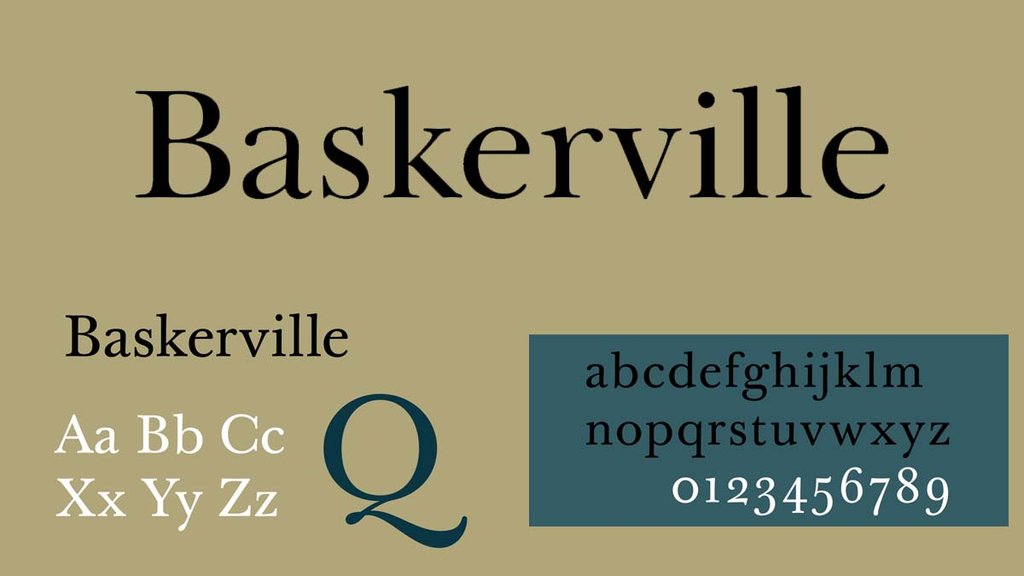
It is a typeface created in the 18th century by John Baskerville, and the font is named after him. A timeless classic, Baskerville is perfect for those who want an elegant and understated look. known for its readability and classic look, and it is often used in books and other printed materials
Garamond
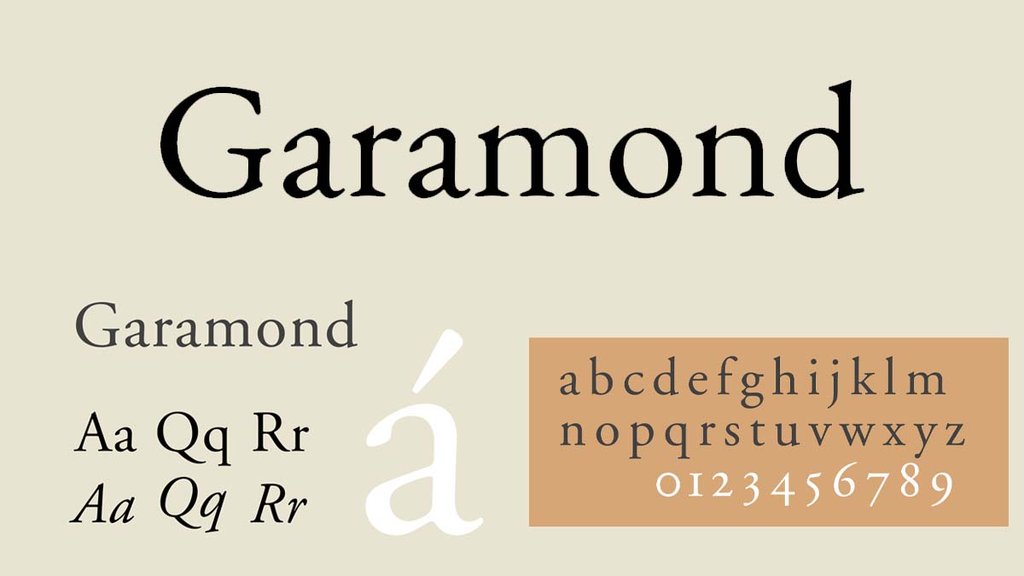
Garamond was one of the most famous typeface designers of the 1600s. It’s an effort to bring back the classic humanist fonts designed by Claude Garamont in the 16th century. Garamond is ideal for formal or traditional projects. Also, its elegant but simple design makes it a popular choice for body text and displays.
Bodoni
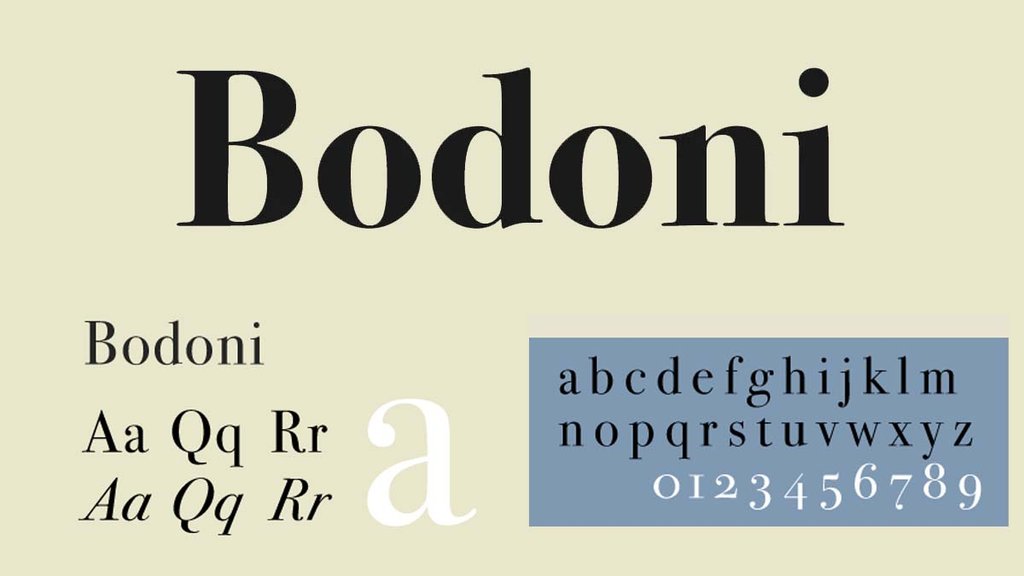
In the late 18th and early 19th century, Bodoni’s work had a considerable impact, and his typeface style became known as the “Bodoni face.” Its high contrast between thick and thin strokes still reads as refined and editorial, which is why fashion and luxury brands keep reaching for it.
Many different type foundries have changed and updated this classic serif typeface over the years. However, it remains a popular choice for designers looking for a timeless serif font.
Helvetica
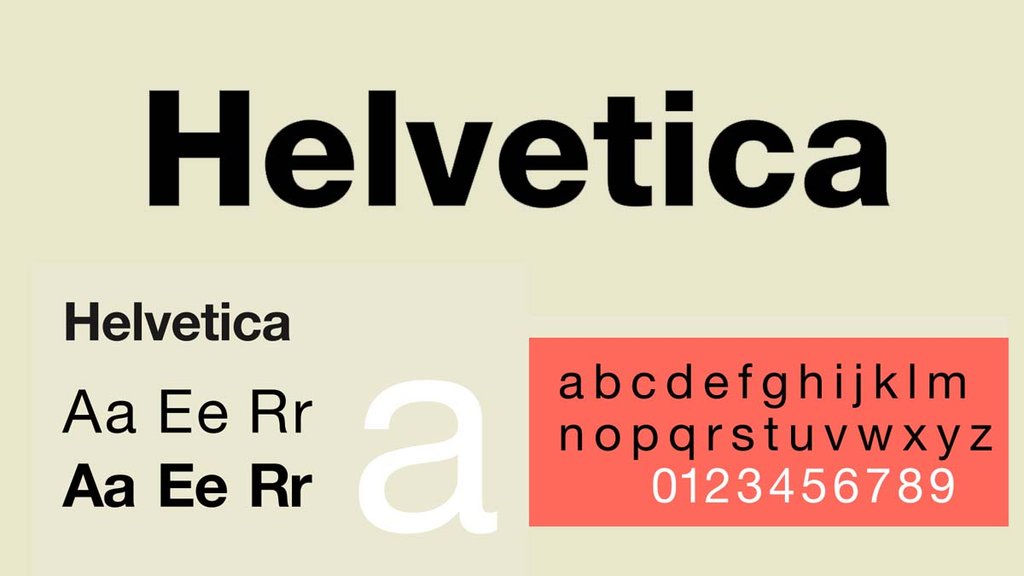
Helvetica has made a name for itself in web and interface design. Helvetica’s many weights and styles make it a flexible choice for both body copy and display. Owing to the same, the font is a popular choice for web and print design. Its clean, modern lines and neutral appearance make it easy to read. Helvetica was so famous that Gary Hustwit made a documentary about it.
DIN
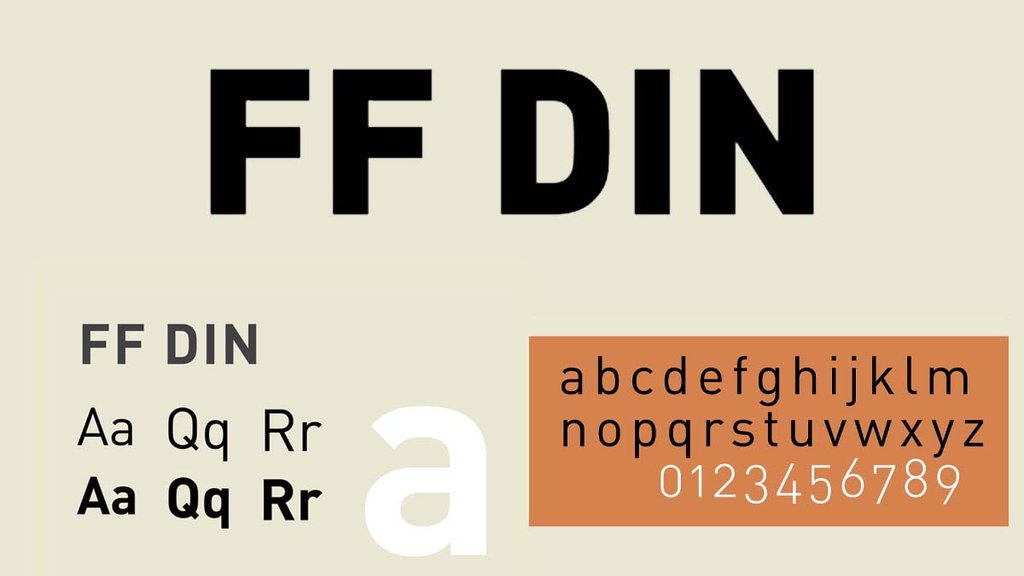
DIN is a playful font that will make your writing more interesting. It’s perfect for headlines, posters, and other creative projects. With its unusual curves and sharp angles, DIN will give your work some style. Give it a try today and watch how it changes the look of our content.
Futura
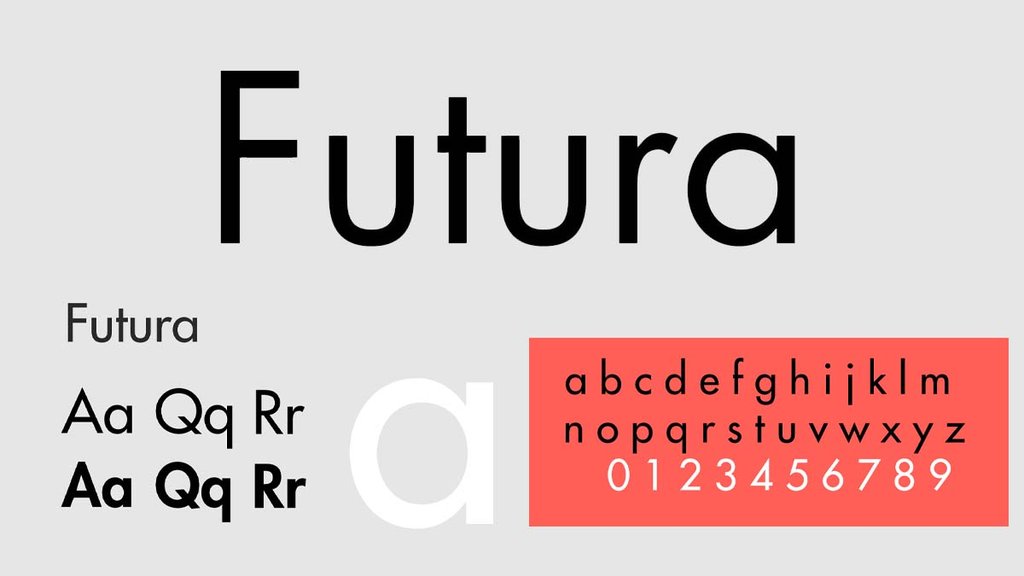
One of the most popular sans-serif fonts is Futura. Futura was the creation of German typeface designer Paul Renner in the 1920s, and he wanted it to be a revolutionary typeface that showed the modern age. A versatile and popular sans serif, Futura is perfect for various applications.
Akzidenz-Grotesk
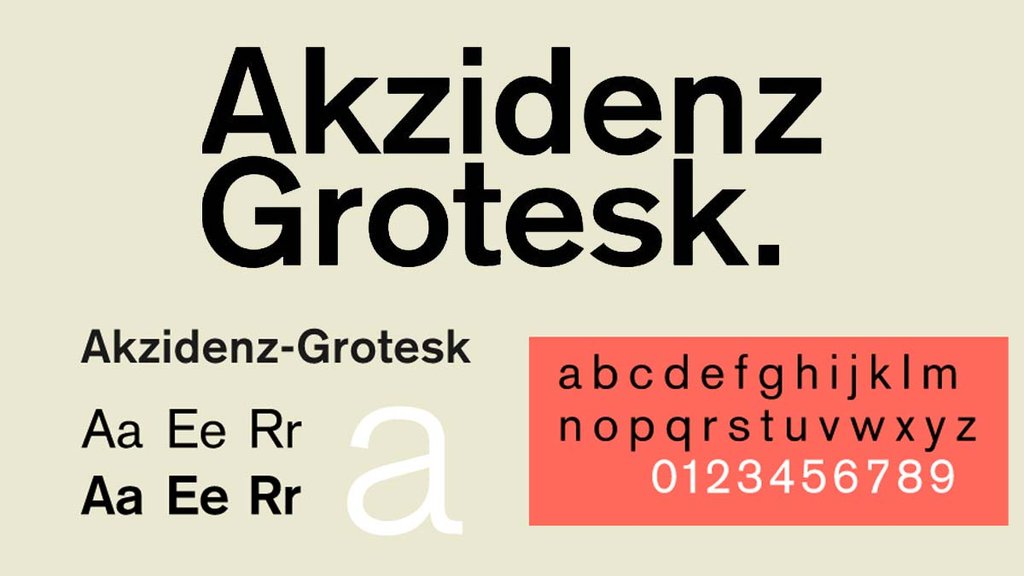
Embrace Good UX and see a skyrocketing profit.
Talk to a UX expert
Clan Pro
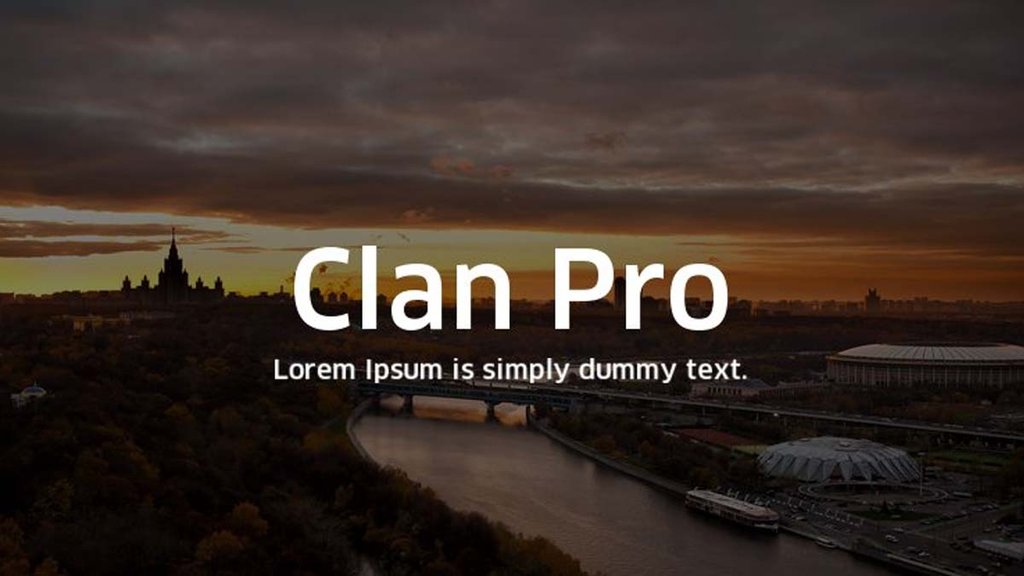
If you’ve ever wanted to stand out from the crowd with your font choice, Clan Pro is a great option. Developed by French typeface designer Neil Summerour, Clan Pro is a modern sans-serif font family. It includes several variations, such as Clan Pro Display and Clan Pro Narrative, so it can be adapted for different uses, whether you’re writing short captions or longer documents. Summerour took inspiration from traditional typesetting when creating Clan Pro, aiming to make it highly readable and exciting, and unique.
Rollgates Luxury
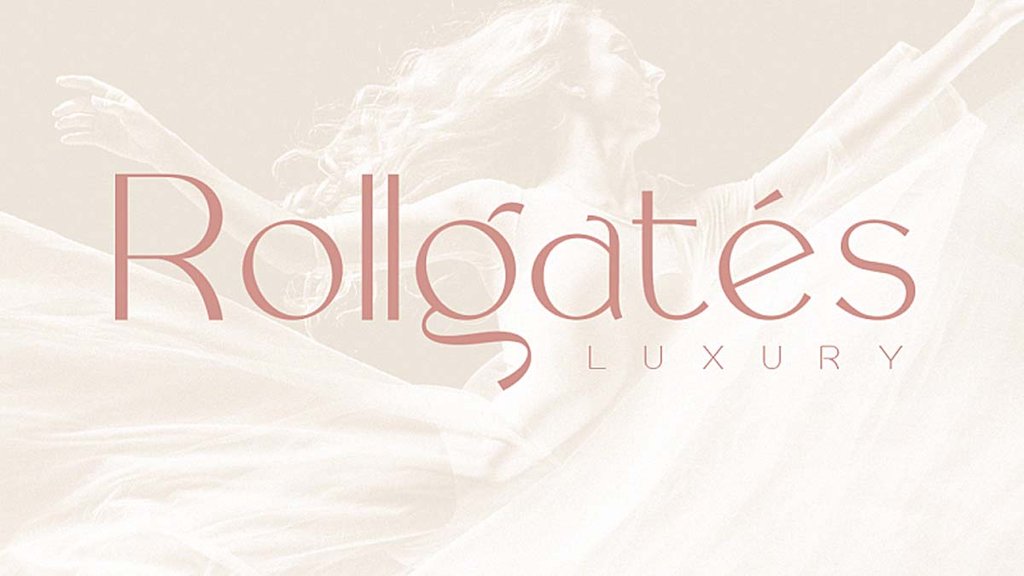
Rollgates Luxury is an elegant and expensive sans-serif typeface that works well for marketing materials, logos, and branding. Its sleek design makes it perfect for luxury brands, while its modern style ensures it will look great on any project.
Rollgates Luxury is created by Cotbada Studios and has multilingual support such as French, German, and Spanish.
Magnolia
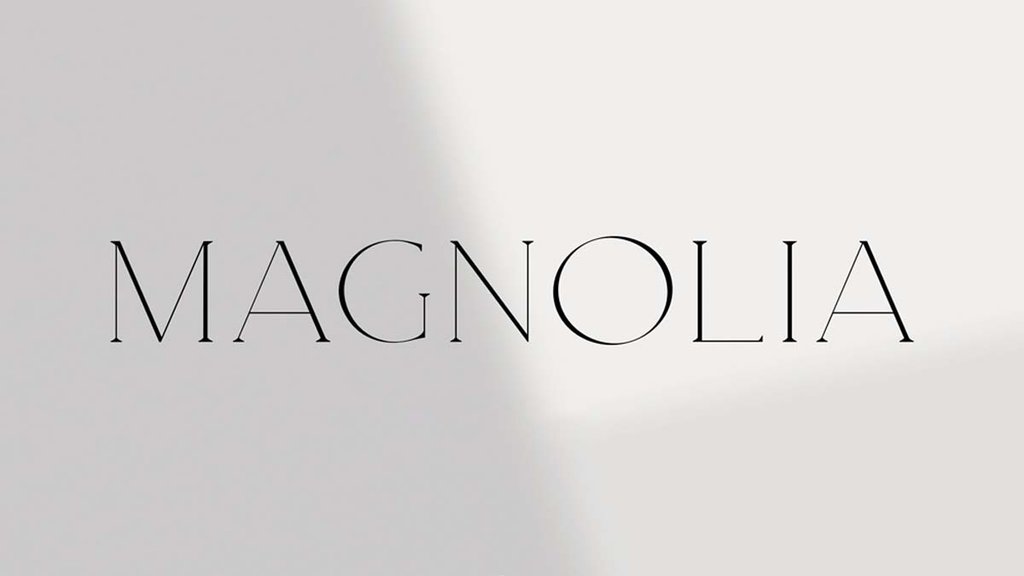
Elegant and timeless, the Magnolia font can make your design look luxurious. If your work calls for a dash of whimsicality, this is the font for you. From invitations to birthday cards, Magnolia will bring joy to your work.
The Most Expensive Fonts in the World
Lexicon
Trinite (Complete Family Bundle)
In 1982, Joh. Enschedé en Zonen(printing company) commissioned Bram de Does to create Trinité. The font was initially released just for photocomposition on the (now defunct) Autologic (analog) phototypesetting machine.s. It is a pervasive and complete font family differentiated by stem length. The short stem version (1) is best for body text, while the extended stem version (3) is ideal for headlines. All characters without ascenders or descenders are identical across all versions, making it easy to switch between weights and styles.
Ruse
Astonishing in its breadth and depth, Ruse is comprehensive. The family has 11 distinct variations, rising in contrasting intensity from 000 to 100. Each style has a wide variety of ligatures and six different types of figures (hanging, lined, tabular, proportional, superior, and inferior).
Renard
Renard, a font created by Fred Smeijers in 1992, is a beautiful example of his work. It was modeled after a 2-line Double Pica Roman cut by Flemish punchcutter Hendrik van den Keere in 1570 and published in Plantin’s folio specimen in 1585. There is no ‘bold’ weight available; however, there are two other options: Renard 2 and Renard 3.
Collis
Collis is a typeface designed in 1993 by Christoph Noordzij. It is a typical The Hague-style typeface with a certain elegance and can be applied in small and display sizes on book covers and posters. The roman and italics contain an extensive array of unique characters, making it suited to complex typographic problem-solving. Collis can be used in a wide variety of applications.
Conclusion
Choosing the right font takes time, best practices, and, most importantly, time. But with the guidelines in mind, you should be able to find the perfect fit for your company. Ultimately, what matters is choosing a quality font that enables you to convey the right message to your target audience.
Frequently asked questions
What font is best for a luxury brand?
There’s no single answer, but most luxury brands land on a classic serif like Garamond, Bodoni, or Baskerville for the heritage and refinement it signals. Pair it with a restrained sans-serif for everyday text.
Are serif or sans-serif fonts better for luxury brands?
Serifs carry the premium associations most luxury brands want, which is why they dominate fashion and high-end branding. Sans-serifs work well as a supporting typeface for body copy and digital interfaces.
What fonts do fashion and luxury brands use?
High-contrast serifs like Didot and Bodoni for an editorial feel, and elegant transitional serifs like Garamond and Baskerville for timeless luxury.